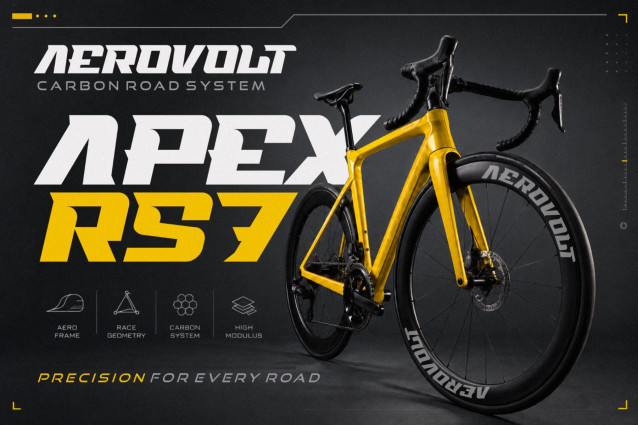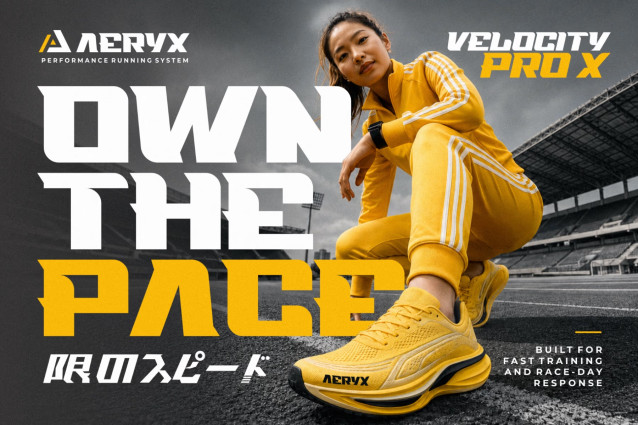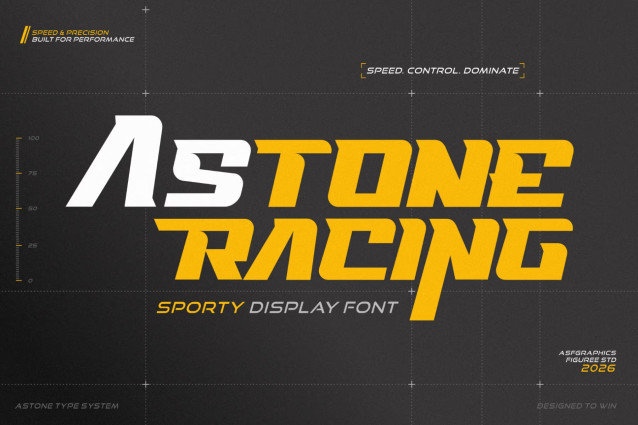
Astone Racing Display Font
Astone Racing Display Font is made for creative work that needs an immediate sense of motion, competition, and racing-inspired attitude. Created as a display typeface, Astone gives designers a strong typographic direction for projects connected to motorsports, automotive culture, sports graphics, apparel, posters, and energetic branding.
Its racing-focused personality makes it especially useful when typography needs to become part of the visual identity rather than simply deliver information. From a motorsport event title to an automotive logo or a bold piece of merchandise, Astone can help establish the right atmosphere from the first glance.
The family includes both Regular and Italic styles, giving you two options for developing hierarchy and variation across a design system. The all-caps character set keeps the overall presentation direct and display-oriented, while numbers and punctuation provide practical support for headlines, names, dates, race numbers, and other graphic applications.
Astone also includes multilingual support, making it a more flexible choice for designers creating visual work for broader audiences.